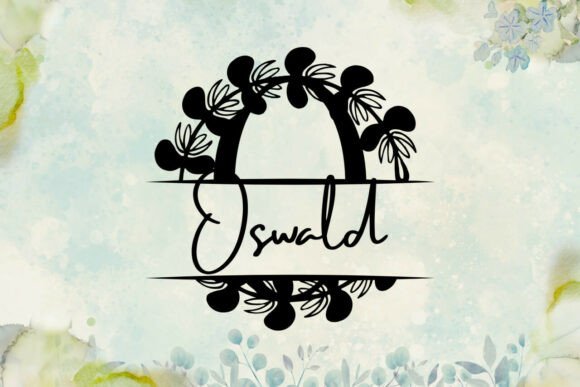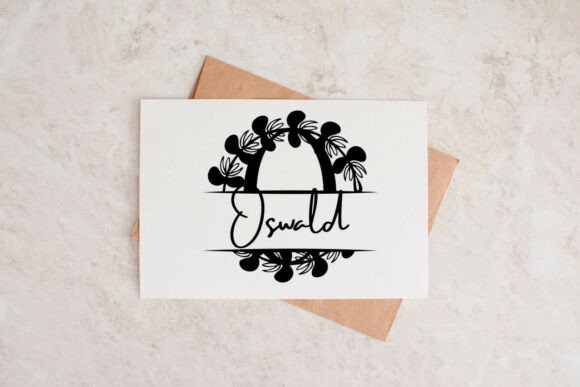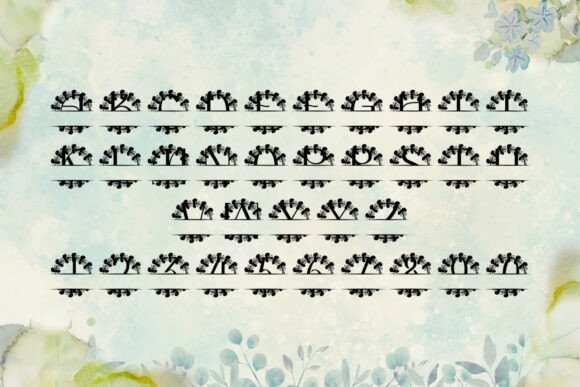
Introduction to Crestoriax Split Monogram Font
Have you ever stared at a blank page, wondering how to turn a loved one’s name into a beautiful work of art? The struggle is real, but with the right design resource, it’s easier than ever. I still remember the first time I used the Crestoriax Split Monogram Font – it was like magic. With just a few clicks, I transformed a simple initial into a stunning, name-ready emblem that perfectly captured the essence of my friend’s wedding.
As a designer, I can attest that this font is a game-changer. Its clean, balanced letterforms and precise horizontal split create natural space for names, dates, or short words, making it perfect for a wide range of creative projects. Plus, its high-quality design ensures that your files will scale smoothly for any cutting machine or printing project.
Whether you’re creating custom wedding keepsakes, family name signs, or boutique packaging, the Crestoriax Split Monogram Font is a versatile and valuable addition to your design toolkit. And the best part? It’s available for free download, making it accessible to designers of all levels.
Key Features of Crestoriax Split Monogram Font
- Transparent background, allowing for seamless integration with various design elements.
- Designed with a split monogram style, perfect for adding a touch of elegance to any project.
- Available in a range of sizes, making it suitable for various design applications, from small icons to large-scale graphics.
- High-resolution design, ensuring crisp and clear rendering even at large sizes.
- Can be used as a standalone design element or combined with other fonts for a unique visual effect.
Honest Review: Crestoriax Split Monogram Font
As a designer, I’m always on the lookout for high-quality fonts that can elevate my creative projects. The Crestoriax Split Monogram Font is a great addition to my design resource library. With a transparent background, it’s perfect for creating unique and eye-catching designs.
Here are some things that work well with the Crestoriax Split Monogram Font: ✨ It’s a free download, which is a huge plus for designers on a budget. The font is highly customizable, making it perfect for logos, branding, and other design projects. It’s also incredibly versatile, suitable for a wide range of design styles.
Here are some limitations of the Crestoriax Split Monogram Font: ⚠️ While it’s free, the font doesn’t come with a commercial license, which may be a concern for designers who plan to use it for client projects. Additionally, the font may not be suitable for very small text sizes, as the lines may become too thin.
Overall, I’m impressed with the Crestoriax Split Monogram Font. It’s a great resource for designers who are looking for a unique and high-quality font to add some creativity to their projects. With a little experimentation, you can achieve some amazing results with this font.
- Perfect for logos, branding, and other design projects
Using Crestoriax Split Monogram Font in Adobe Photoshop/Illustrator
To use the Crestoriax Split Monogram Font in Adobe Photoshop or Illustrator, open the software and select the font from the font library. You can use it to create a logo, icon, or other design elements with a transparent background. The font’s versatility makes it suitable for a wide range of design projects.
Using Crestoriax Split Monogram Font in PowerPoint/Word
To use the Crestoriax Split Monogram Font in PowerPoint or Word, select the font from the font library and use it to create a presentation or document. The font’s high quality and unique design make it perfect for presentations, reports, and other business documents.
Common Use Cases and Tips
The Crestoriax Split Monogram Font is suitable for a wide range of design projects, including logos, social media graphics, flyers, presentations, and reports. To get the most out of the font, use it with a transparent background to create a modern and stylish design. Experiment with different font sizes and styles to find the perfect look for your project.